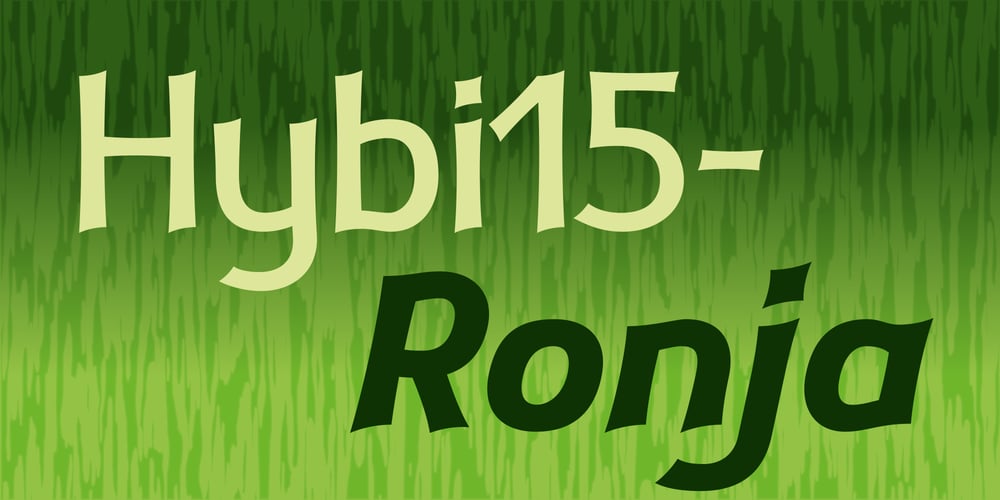
Hybi15 Ronja Font Family was designed by Peter Hübner and published by Hybi-Types. Hybi15 Ronja contains 4 styles and family package options. The Hybi15-Ronja is a characterful 4-style font family.It’s high recognition factor makes it appropriate for all oportunities of headlines, slogans and advertising.Though, it’s straight-line and well-balanced look makes it friendly and charming.The fonts are offering a huge character set for usage in many languages.Also thousands of kerning pairs within each style are obligatory.